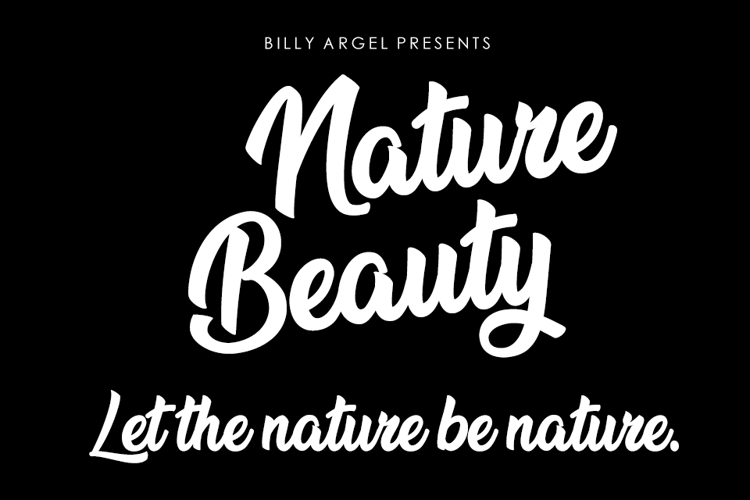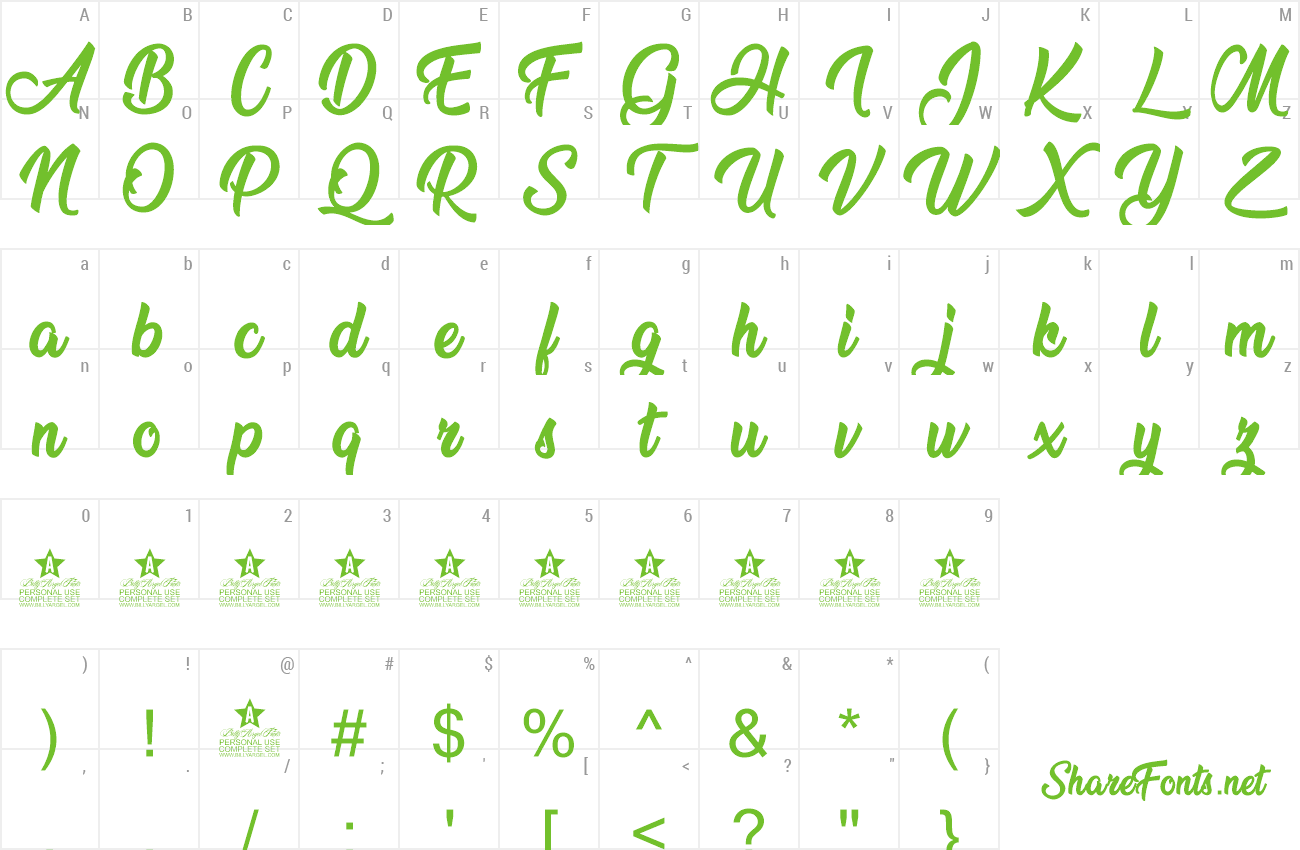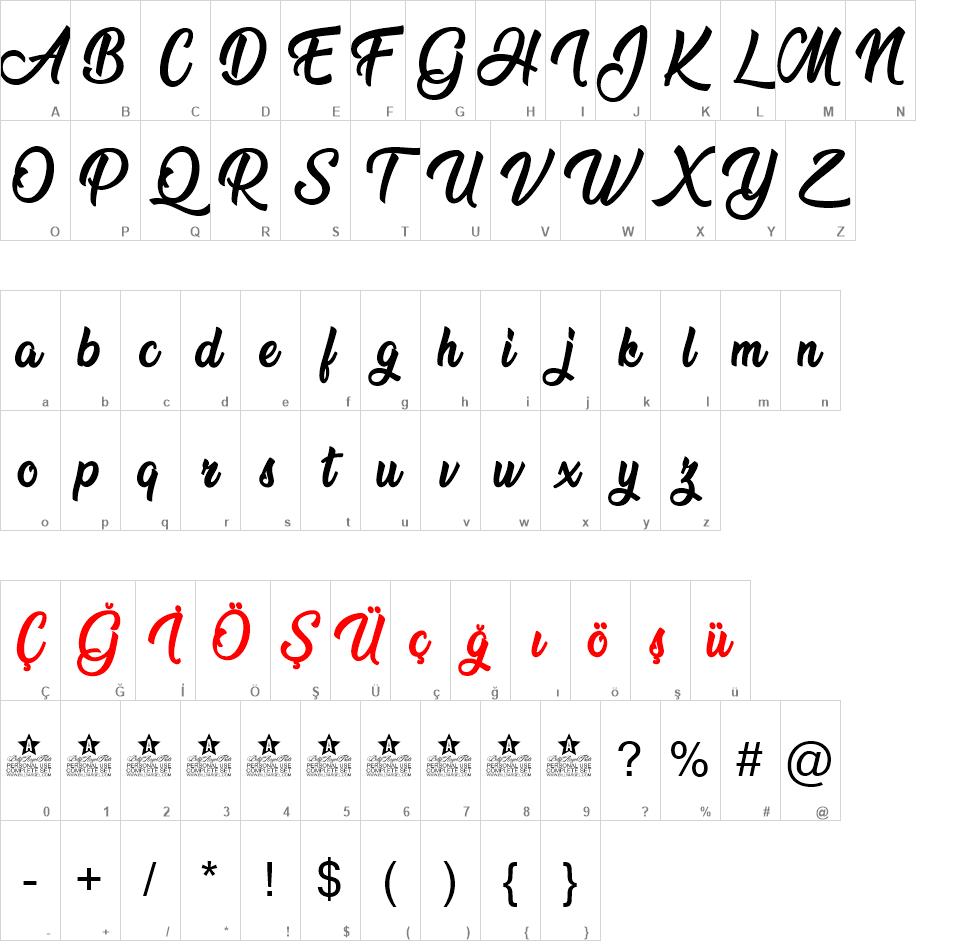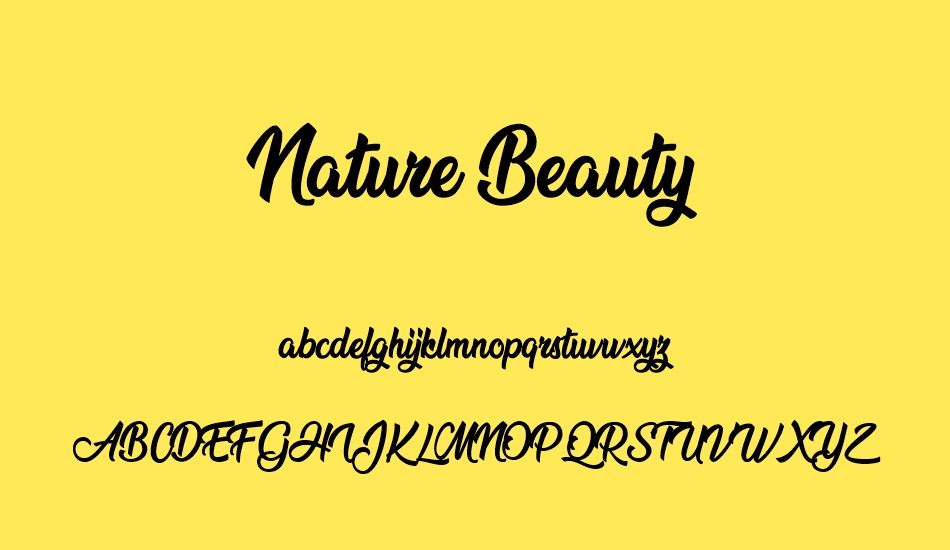
Nature Beauty Font
Nature beauty script font is inspired by vintage style and combined with. Download nature beauty font, a partial and free for personal use font by billy argel.
Nature Beauty Script Font Is Inspired By Vintage Style And Combined With.